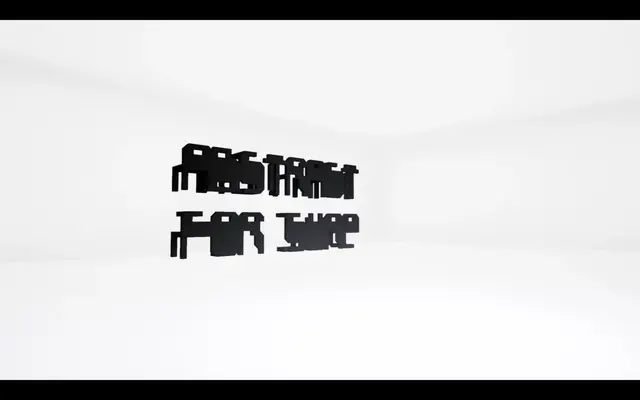
Mesh
Diorama Type Partners · Marie-Mam Sai Bellier · 2023
A display typeface drawn from 3D sculptural letters originally built for a video game, referencing machine-legible computrice aesthetics and Vasarely's geometric world.
Designed by Marie-Mam Sai Bellier and published by Diorama Type Partners in 2023, Mesh originates from letter-sculptures created for the Diorama No.2 publication's accompanying video game, set in a geometric city inspired by Victor Vasarely. The 2D OTF version is derived by applying a consistent vanishing point to those 3D forms, producing a typeface dense with bevels that recall systematic modernism pushed to an absurd extreme. Each licence includes both the 2D and 3D versions, with the latter supplied as a Blender file.
Mesh is a geometric display typeface derived from 3D sculptural forms, referencing machine-readable typefaces (computrices) and science-fiction aesthetics; it sits firmly in the display category due to its extreme stylisation and perspective-driven bevel construction.